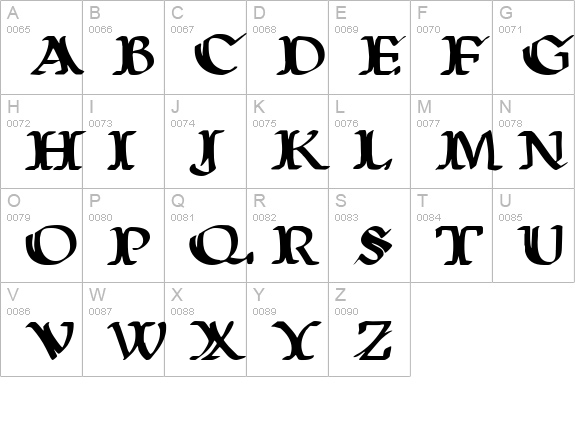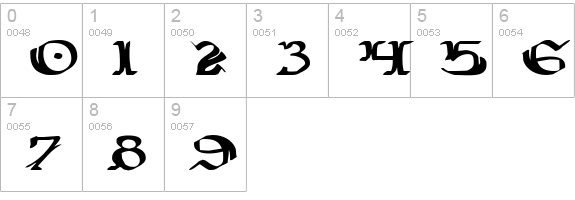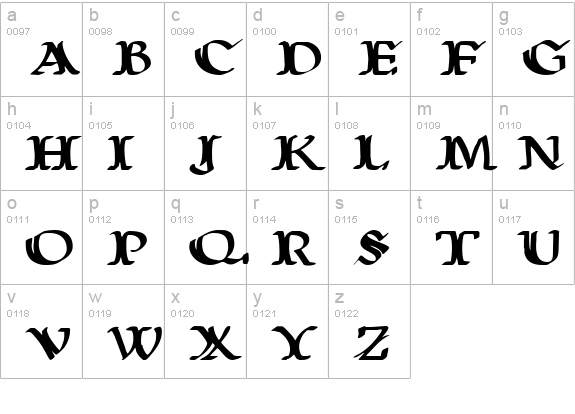
Wars of Asgard Expanded is a distinctive, extended-width variant in the Wars typeface family \xE2\x80\x94 well suited to design and typography projects.
The Wars of Asgard Expanded font is a bold and striking typeface inspired by the mythical battles of the Norse gods. With its strong, angular lines and intricate details, this font conveys a sense of power and strength. Perfect for headlines, posters, and other display purposes, Wars of Asgard Expanded commands attention and leaves a lasting impression. What makes this font even more appealing is that it is available for free download at FontsMarket.com. That's right, you can add this impressive typeface to your collection without spending a dime. Don't miss out on the opportunity to elevate your designs with the Wars of Asgard Expanded font - download it now and let your creativity soar!